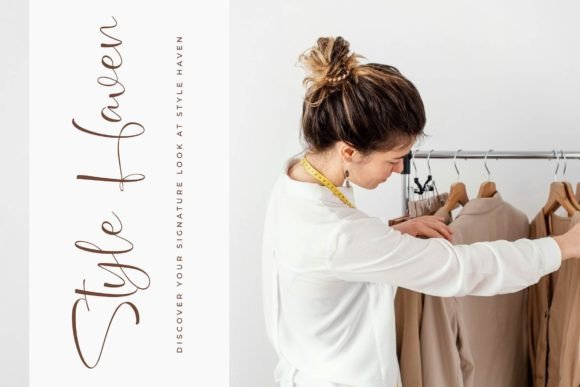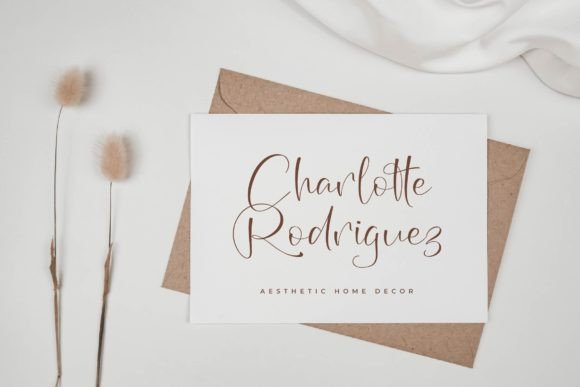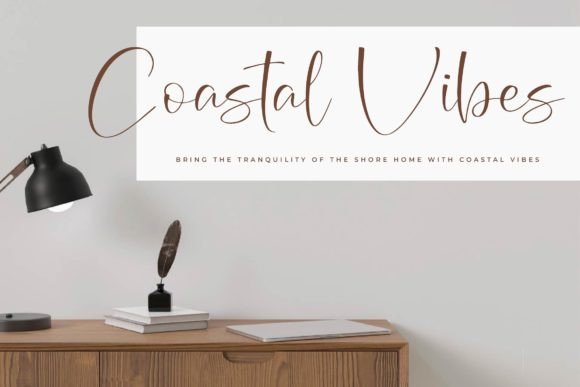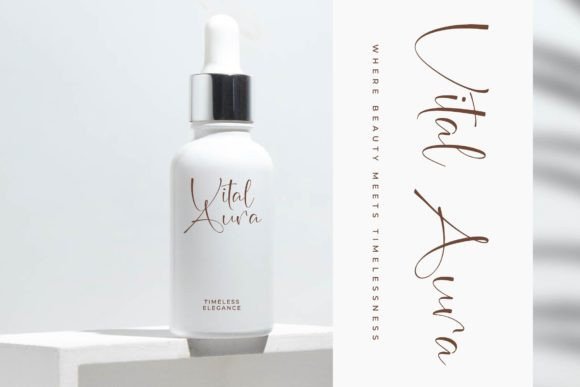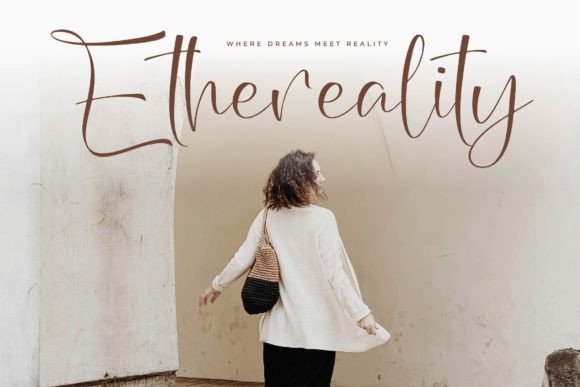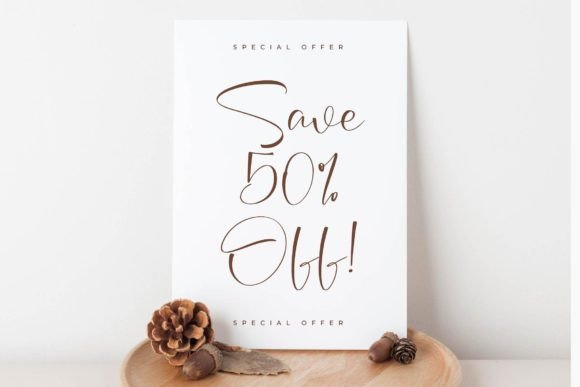
The Secret to Elevating Your Designs
Have you ever stumbled upon a beautiful font that sparks a wave of creativity, only to struggle finding the perfect project to bring it to life? For designers, this is a common phenomenon – a font so breathtaking, it demands to be showcased in all its glory. This is exactly what happened when I discovered the Amethysta Secret Font, a Luxury Script font that exudes elegance and sophistication.
Created by Letterena, Amethysta Secret Font is a modern freestyle script designed to elevate any project, from logos and branding to homeware designs and product packaging. Its versatility and luxury feel make it a valuable asset for designers looking to add a touch of sophistication to their work.
Whether you’re working on a high-end branding project or a simple greeting card, the Amethysta Secret Font is sure to leave a lasting impression. Its beauty lies in its ability to add a touch of luxury to even the most mundane designs, making it a must-have for any serious designer.
Amethysta Secret Font Key Features
- Font Size: 1,024 glyphs, including letters, numbers, punctuation, and special characters
- Unique Characteristics: Amethysta Secret features a unique blend of mystical and mysterious elements, with intricate details and subtle flourishes
Amethysta Secret Font Review
Overall, I’d say that “Amethysta Secret Font” is a pretty solid addition to any designer’s toolkit. It’s ✨ elegant and sophisticated, making it perfect for high-end branding or luxury products. The subtle imperfections and hand-drawn feel give it a unique touch that can help your designs stand out from the crowd.
One of the things that really works well about this font is its ✨ versatility. It’s suitable for both digital and print applications, and can be used for a wide range of purposes, from logotypes to body text. The font also comes in a variety of weights and styles, which makes it easy to customize and adapt to your specific needs.
Here are some of the things that I like about Amethysta Secret Font:
- ✨ Elegant and sophisticated feel
- ✨ Versatile and suitable for multiple applications
- ✨ High-quality design and attention to detail
- ✨ Easy to customize and adapt
That being said, there are a few limitations to consider:
- ⚠️ May not be suitable for very small text sizes due to its decorative nature
- ⚠️ May not be as readable as other fonts in certain contexts
- ⚠️ Limited language support (although this may be addressed in future updates)
Overall, I’d recommend Amethysta Secret Font to designers who are looking for a unique and sophisticated font for their luxury or high-end projects. Just be sure to consider its limitations and use it in a way that takes advantage of its strengths.
Tips for Getting the Most Out of Amethysta Secret Font
For the most striking results, use Amethysta Secret Font in bold or italic styles to add emphasis to your text. Experiment with different font sizes and colors to create visual hierarchy and balance.
Amethysta Secret Font is ideal for creative projects such as:
- Artistic prints and posters
Alternatives to Amethysta Secret Font
Great Vibes is a modern, elegant script font that works well for headings and titles. It has a softer, more organic feel than Amethysta Secret Font, making it suitable for designs that require a touch of whimsy.
Comparison: Great Vibes is more casual and playful than Amethysta Secret Font, which is more formal and sophisticated.